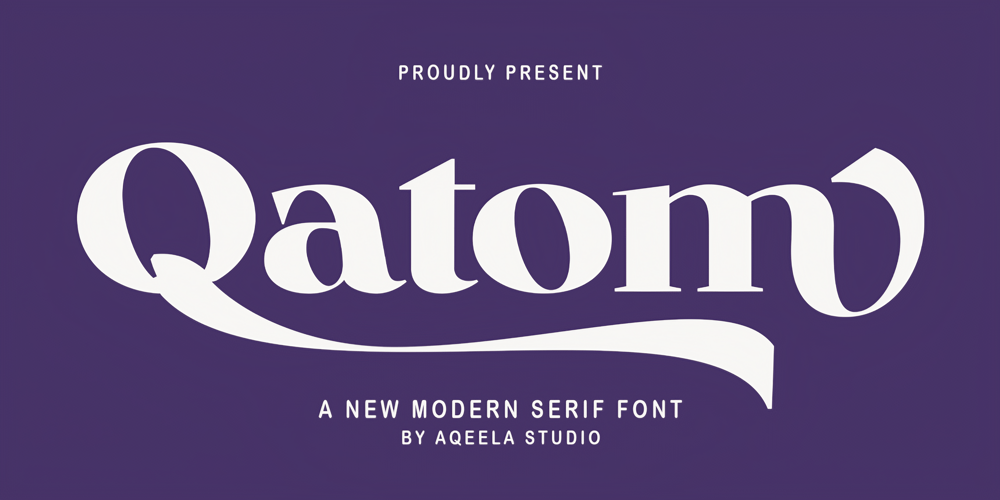
Qatom
Qatom font
Qatom Font Family was designed by Muhammad Nasir and published by Aqeela Studio. Qatom contains 1 styles and family package options. The “Qatom” font isn’t widely recognized as a standard font. However, if you are referring to a specific style or custom font, you can achieve a bold serif look with CSS or a graphic tool. Here’s an example of how to describe content in a bold serif style that could fit the idea of “Qatom”: